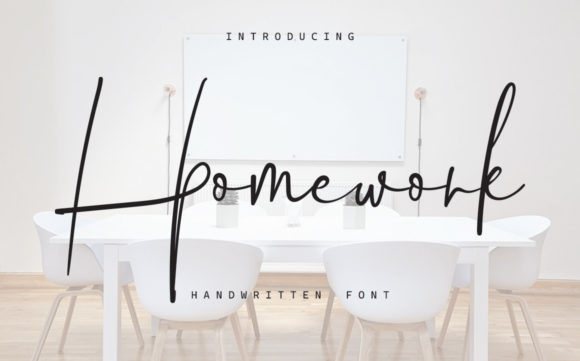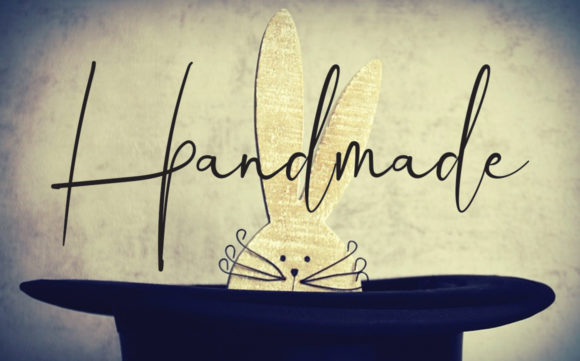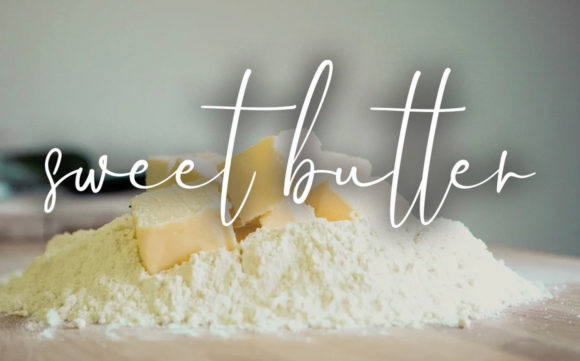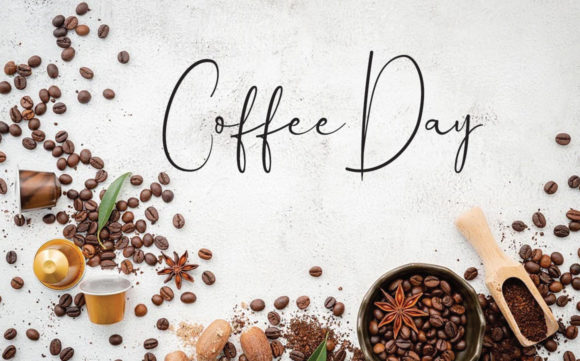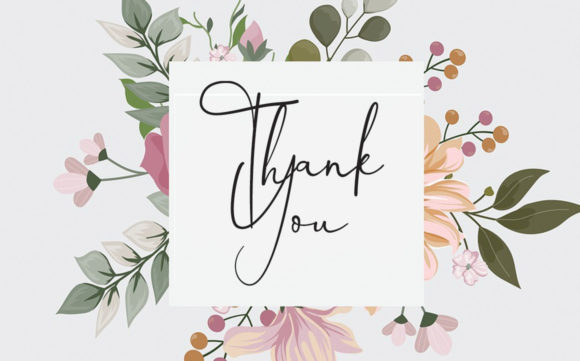
About Homework Font
Homework is a beautiful and flowing handwritten font. Use it for wall displays, wedding invitations, social media post logos, advertisements, product packaging, product designs, labels, photography, watermarks, invitations, stationery, and any project that requires impressive typography.